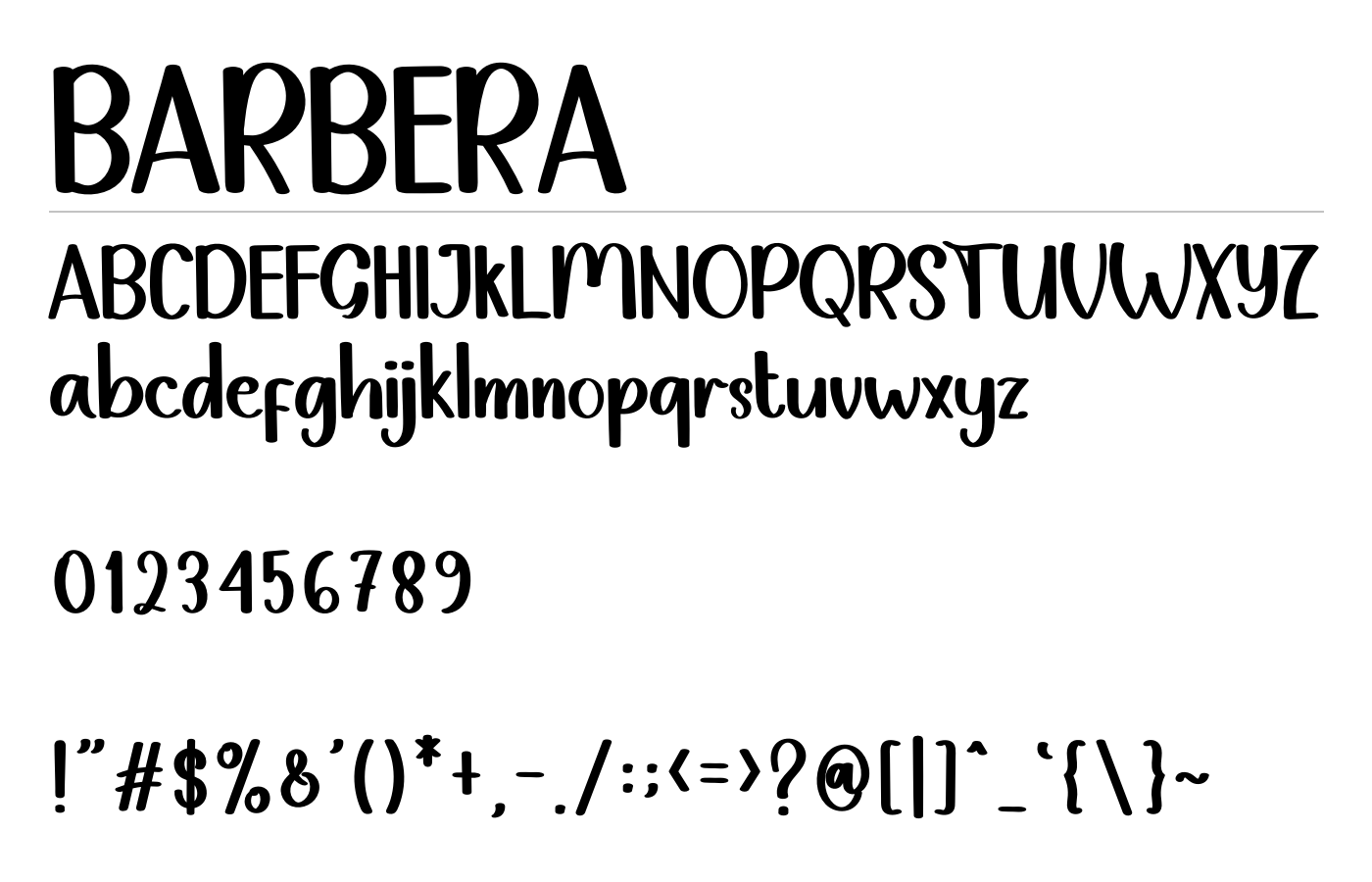
Barbera is a playful, hand-drawn sans serif font with a lively personality and a casual charm. Its slightly condensed letterforms and mix of curved and straight strokes give it a friendly, approachable feel, making it perfect for creative projects, children’s content, and informal branding. This font works well for headlines, packaging, and any design needing a warm, whimsical touch.
BARBERA Font